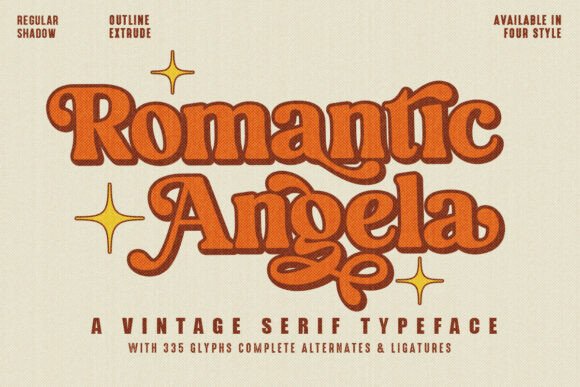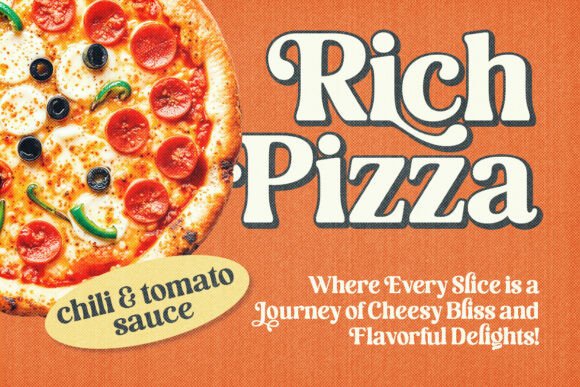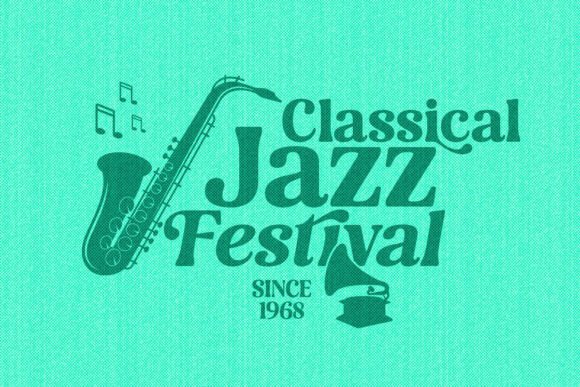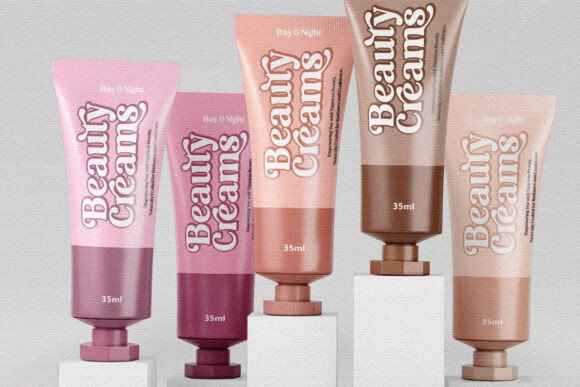
Romantic Angela Font
About the Romantic Angela Font
The Romantic Angela Font offers a perfect balance of form and function for your design needs. Romantic Angela is a versatile, stylish, and fun retro display serif font. Romantic Angela comes in 4 styles, regular, extrude, outline, and shadow. Mix each style for the perfect result.
Romantic Angela is very perfect for any design you create such as covers, branding, logos, posters, quotes, product packaging, greeting cards, headlines, merchandise, social media, and more!
Add this Romantic Angela font to any of your creative projects, and it will give a retro and vintage feel.
This font’s playful retro style is ideal for headlines, logos, short-form text on posters, and packaging design where a bold, vintage aesthetic is desired. Its versatility across the four styles allows for creative layering and interesting visual effects. However, Romantic Angela’s decorative nature makes it unsuitable for body text or UI elements requiring high legibility.
Consider pairing Romantic Angela with a clean sans-serif like Open Sans for a balanced contrast, or a geometric sans-serif such as Futura for a more modern feel. A simple serif like Garamond could also work well for supporting text, maintaining a classic yet updated tone.
Romantic Angela projects a fun, slightly quirky, and undeniably retro personality, best suited for brands targeting a younger demographic or those wishing to evoke a sense of nostalgia and playful energy.
Romantic Angela Font Usage Examples
Romantic Angela Font Example